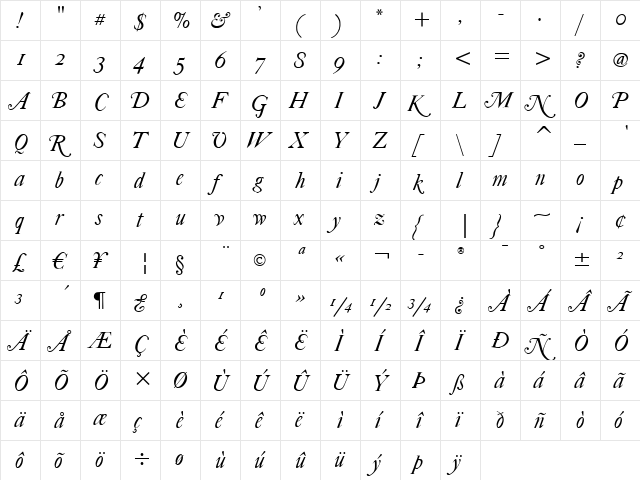
FCaslon 42 ITC Italic Font Preview
FCaslon 42 ITC Italic
FCaslon 42 ITC Italic Font Details
| Foundry | International Typeface Corporation |
Design Context for FCaslon 42 ITC Typeface
FCaslon 42 ITC is a composed and adaptable typeface that performs quietly and consistently across a wide range of design contexts. Its italic angle brings a sense of urgency and motion to the letterforms.